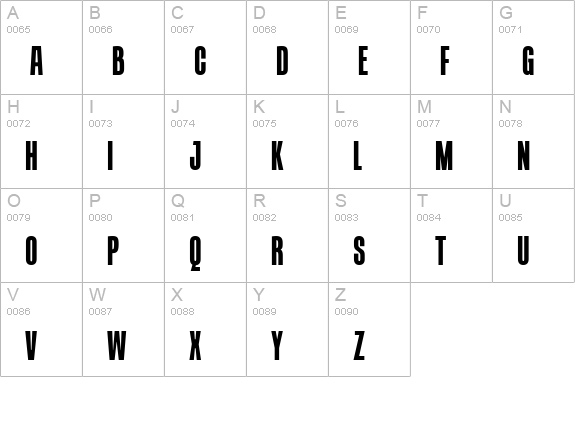
Tandelle Bold is a strong, high-contrast variant in the Tandelle typeface family \xE2\x80\x94 well suited to headlines, attention-grabbing titles, and strong calls-to-action.
Tandelle Bold font is a striking and versatile typeface that exudes strength and sophistication. Its bold and commanding presence makes it the perfect choice for headlines, titles, and logos that demand attention. The sharp and clean lines of Tandelle Bold give it a modern and professional look, while its sleek design adds a touch of elegance to any project. This font is not only visually appealing but also highly functional, with excellent readability even at smaller sizes. Its well-crafted letterforms and balanced spacing make it a reliable choice for a wide range of design applications. The best part? Tandelle Bold is available for free download at FontsMarket.com, allowing you to easily incorporate this stunning font into your projects without breaking the bank. Don't miss out on the opportunity to enhance your designs with the bold and impactful Tandelle Bold font today!